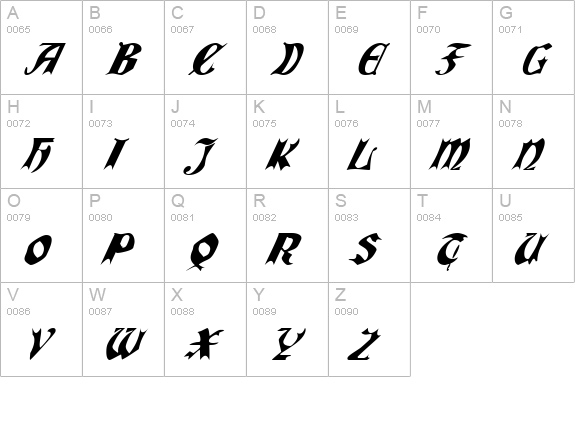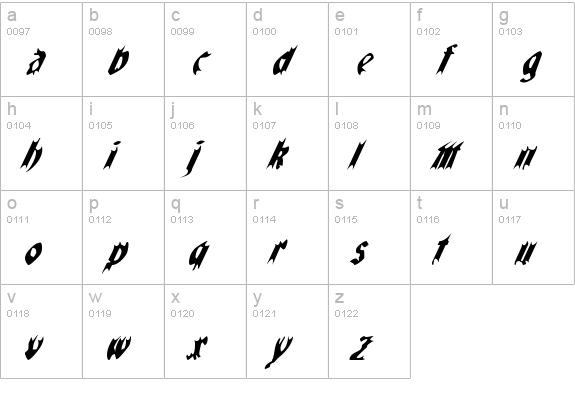
QuaelGothicItalics Font Details
Introducing QuaelGothicItalics font, a captivating typeface that exudes a sense of mystery and elegance. With its unique blend of gothic and italic styles, this font is the perfect choice for projects that require a touch of sophistication and intrigue. QuaelGothicItalics font effortlessly combines the bold and angular features of gothic lettering with the graceful slant of italics, resulting in a visually striking and harmonious design. Each letter is meticulously crafted with meticulous attention to detail, ensuring optimal legibility while maintaining its distinctive personality. Whether you are designing a logo, creating a poster, or even working on a website, QuaelGothicItalics font will surely make a lasting impression. Its versatility allows it to seamlessly adapt to various design concepts, adding a touch of drama and allure to your projects. And the best part? QuaelGothicItalics font is completely free! Yes, you read that right. You can freely download this remarkable font at FontsMarket.com, making it easily accessible to all designers and creatives. So why wait? Unleash your creativity and give your designs an enchanting edge with QuaelGothicItalics font. Download it today and let your imagination soar!